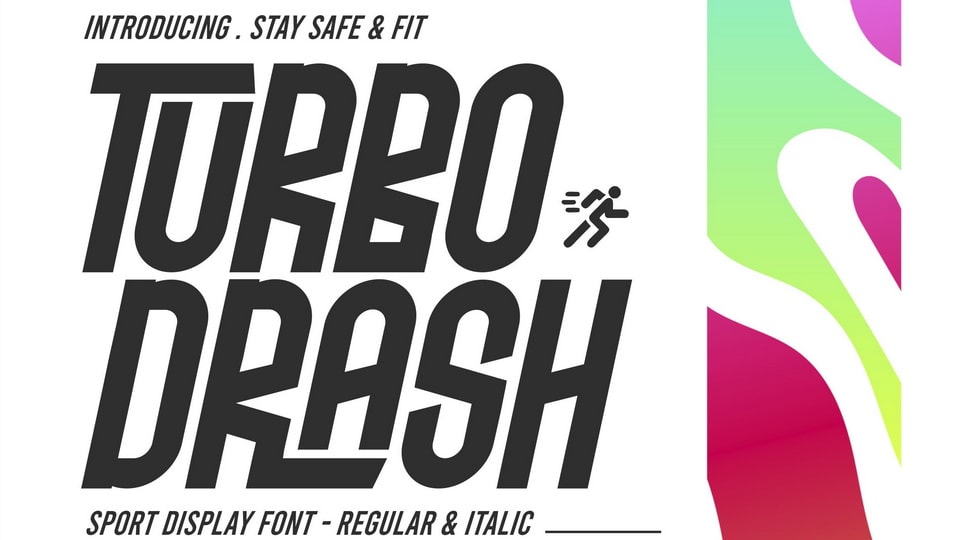
Download Turbo Drash font, the ultimate sport-inspired display typeface designed to deliver high-energy and dynamic visuals with its sleek lines and bold presence.
Designer: Figuree Studio